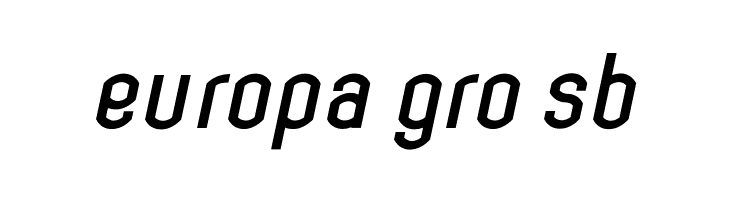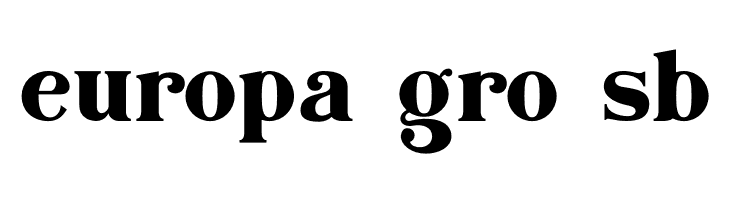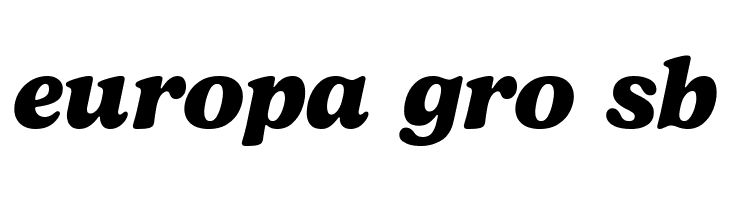
A bold serif font with strong, thick strokes and a classic yet modern appeal.
A bold, italic serif font with strong, dynamic strokes and pronounced serifs.
A bold serif font with strong strokes and pronounced serifs, offering a classic yet modern look.
A bold, modern font with geometric influences and consistent stroke width.
A bold, italicized font with a dynamic and strong appearance.
A bold, geometric font with a modern and structured design.
A bold, modern sans-serif font with a clean and uniform appearance.
A bold, italicized modern font with clean lines and a professional look.
A bold, geometric font with rounded edges and a modern style.